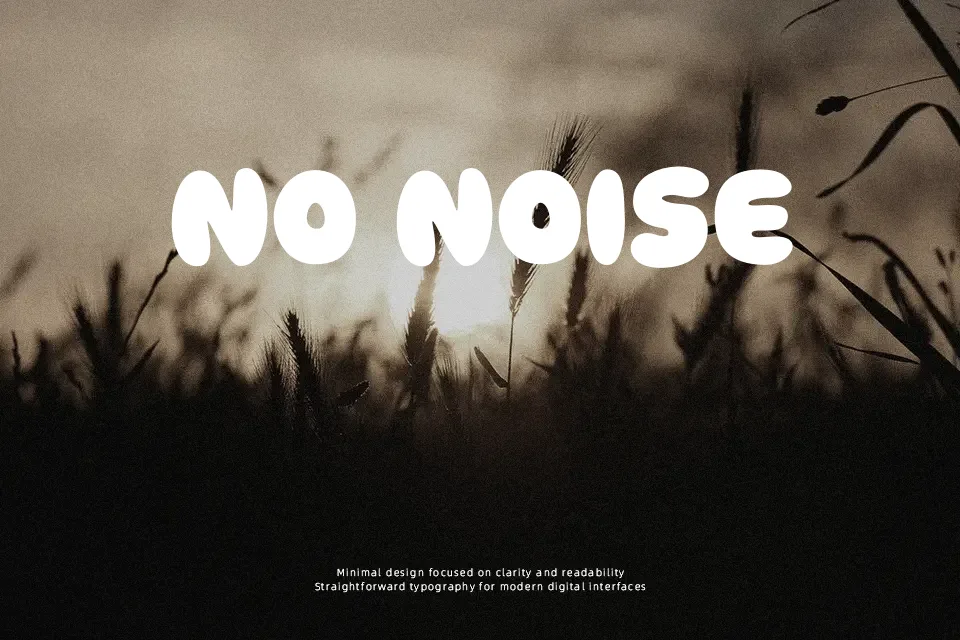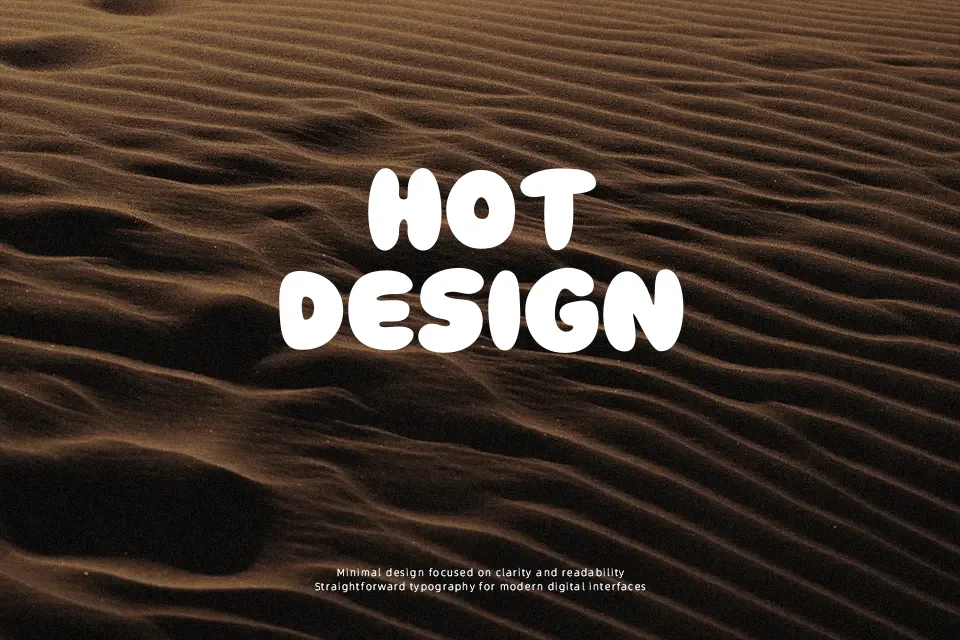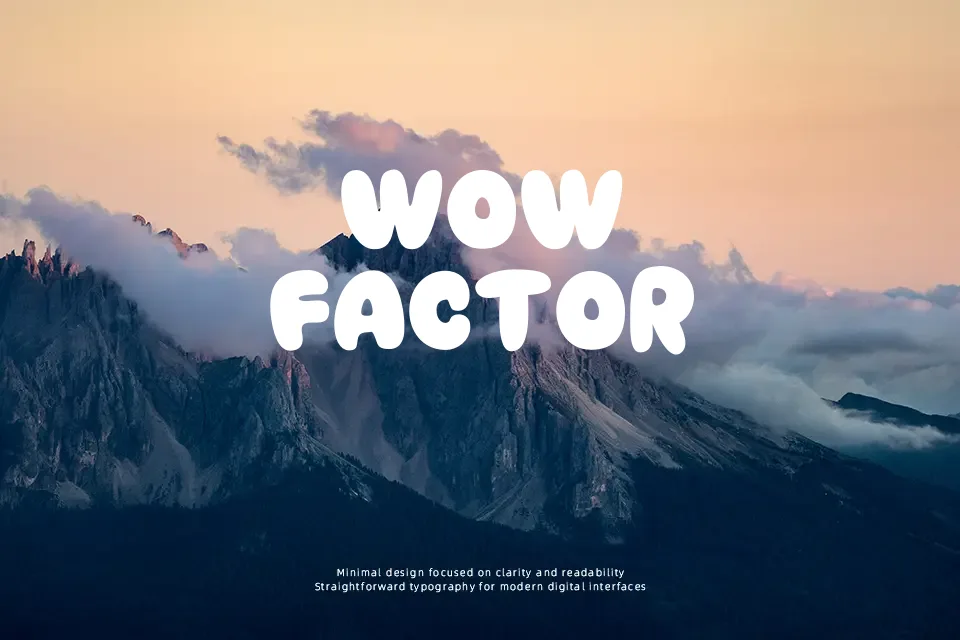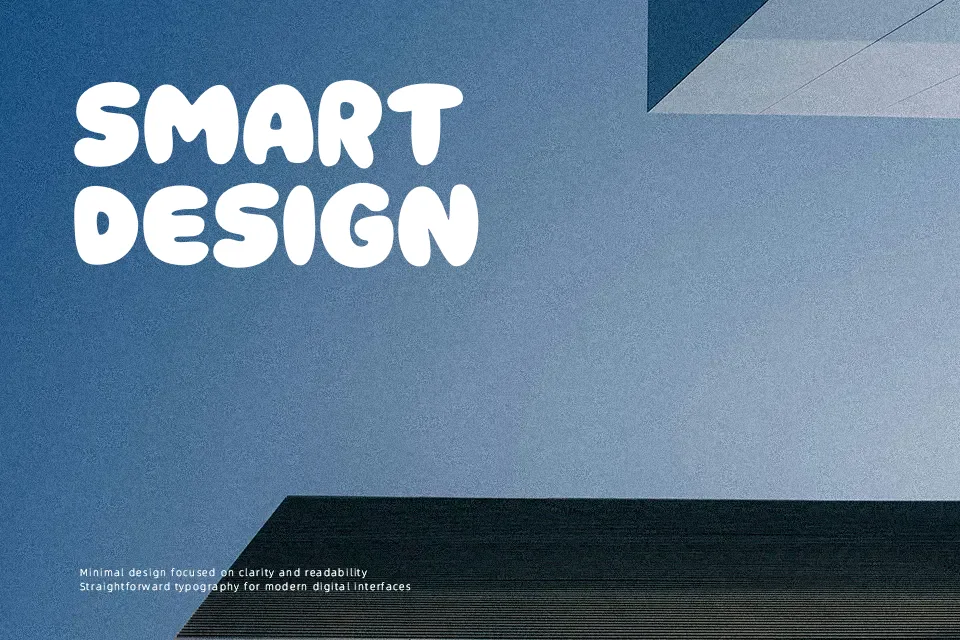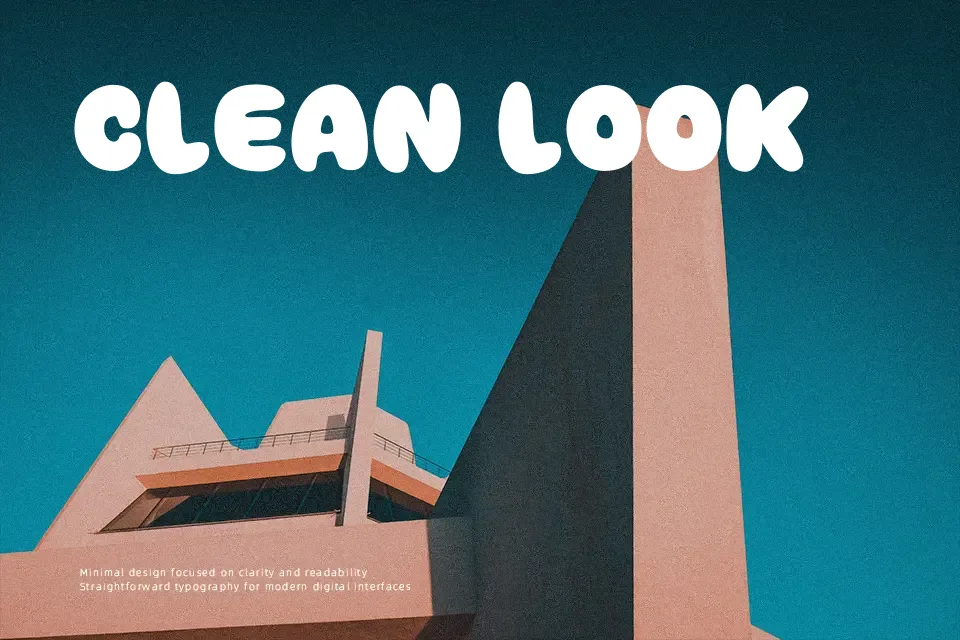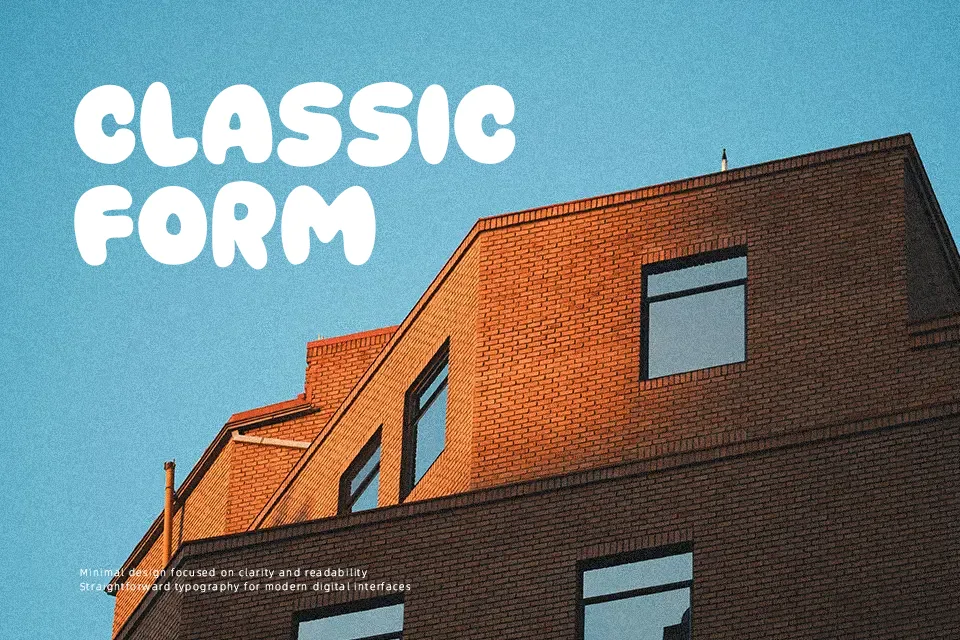
Cinema Cartoon Font
Designed by suhadidesign
Cinema Cartoon Font features ultra-heavy display letterforms characterized by puffed contours, soft terminals, and tight inner counters. The design maintains an expanded width profile with minimal stroke contrast, producing a plump, bubble-like appearance across all characters. Balanced letter spacing prevents adjacent glyphs from colliding while preserving strong visual weight in headline layouts. The typeface provides excellent readability at large display sizes, making it suitable for amusement park signage, youth apparel graphics, and casual video game logos. However, the dense weight and restricted interior apertures make the font unsuitable for continuous paragraph reading or small interface captions. The heavy mass ensures commanding shelf presence in physical packaging.
Best For: children’s book covers, animated title cards, toy packaging, arcade game headers
Not Ideal For: continuous paragraph text, mobile app body copy, legal documents, dense editorial layouts
Perfect for film, headline, and kids, with a bold and cartoon style.